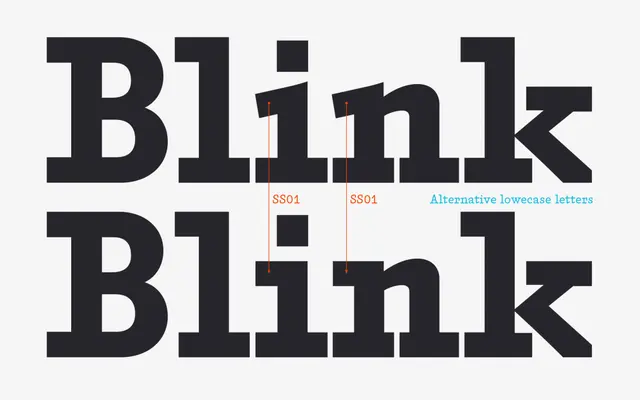
Pathos
A slab serif by Rui Abreu built around one constraint: pushing rectangular serifs to the absolute limit of available space.
Designed by Rui Abreu in 2016, Pathos takes a single design premise and follows it to its logical extreme, maximising serif size until the letterforms themselves must adapt, leaning left or right to accommodate the uncompromisingly thick rectangular serifs and terminals. The result is an unusual structural dynamism that gives each glyph a distinct posture while maintaining legibility in both text and headline settings. Twelve styles span six weights from Thin to Black, each with a matching italic.
Pathos is explicitly a slab serif, defined by its extreme rectangular serifs and terminals pushed to the physical limits of legibility. The design concept centres entirely on maximising serif size, placing it firmly in the slab category with an experimental, display-oriented character.